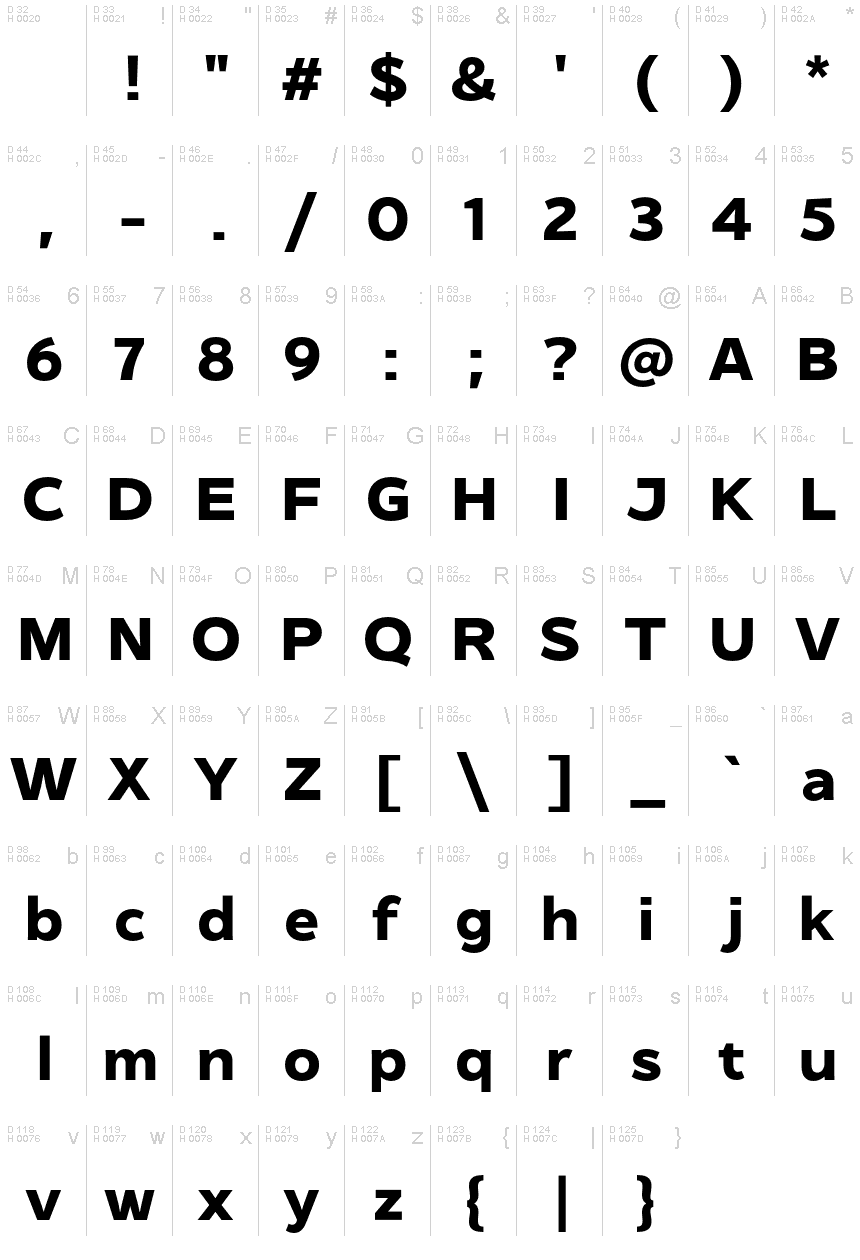
Quixotic Sans Bold
Quixotic Sans Bold is a stunning sans-serif font that's perfect for modern and stylish projects. With its semi-expanded width and bold weight, this font is ideal for creating eye-catching headlines, logos, and titles that demand attention. Its clean lines and sleek design make it suitable for a wide range of projects, from minimalist websites to print materials such as brochures or business cards. Whether you're designing a fashion blog or corporate branding, Quixotic Sans Bold is the perfect choice to add a touch of sophistication and elegance to any project. Get creative with Quixotic Sans Bold and take your designs to the next level!